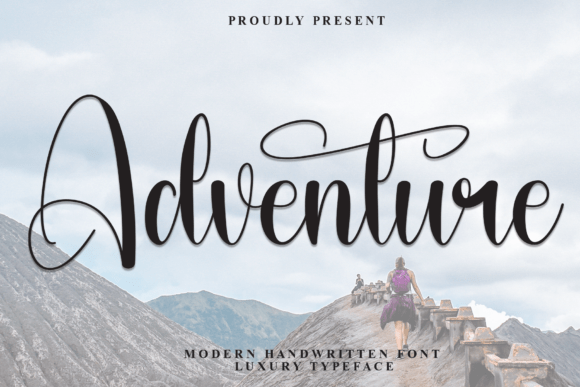
The Perfect Script for Your Next Creative Quest
Have you ever sat down with a blank sheet of paper, a blank canvas, or a blank screen, and felt the thrill of a new creative project waiting to be born? The blank slate can be both exhilarating and intimidating, but the right tools can make all the difference. That’s where the Adventure Font comes in – a stylish handwritten script that combines modern elegance with a playful touch, making it the perfect companion for your next creative adventure.
Whether you’re designing a logo, packaging, or invitation, the Adventure Font brings a personal feel to your work, adding warmth, sophistication, and creativity to every project. As a designer, you understand the value of a versatile and high-quality font that can elevate your designs and make them truly stand out. With the Adventure Font, you’ll find yourself reaching for it again and again, thanks to its fluid strokes and charming curves.
Key Features of Adventure Font
- Unique Characteristics: Distinctive, hand-drawn design with a sense of adventure and exploration
Adventure Font Review
I was excited to dive into the Adventure Font and see what it had to offer. Here’s my honest take:
The font’s playful feel is undeniable. It’s perfect for creating a sense of adventure and excitement in any project. The customizable weights and italic styles add a level of flexibility that’s hard to resist.
- Unique letterforms that add to the adventurous feel
- Good legibility even at smaller font sizes
- Wide range of customization options
While the Adventure Font is a great choice for many projects, it’s not without its limitations. The font’s quirky feel might not be suitable for all projects, and the limited language support might be a concern for some users.
- May not be suitable for formal or professional projects
- Limited language support, including some non-Latin scripts
The Adventure Font is a great choice for anyone looking to add a playful touch to their project. While it may not be suitable for all projects, it’s a great addition to any designer’s toolkit. With a little creativity, the Adventure Font can help take your project to the next level.
Adventure Font Practical Application Guide
Getting the Most Out of Adventure Font
For the best results, use Adventure Font for titles, headings, and emphasis in your design. Avoid using it for large blocks of text, as it can be difficult to read.
Adventure Font is perfect for:
- Travel brochures and websites
- Adventure-themed marketing materials
- Outdoor and sports-related designs
Alternatives to “Adventure Font” for Designers
Great Vibes is a modern, cursive script font that is perfect for creating a sense of excitement and adventure. It is ideal for use in titles, headings, and other design elements where a touch of elegance and sophistication is required.
Great Vibes is more elegant and refined compared to Adventure Font, making it suitable for more upscale designs. It is also more versatile and can be used in a variety of contexts, from fashion to travel.
Bangers
Bangers is a bold, sans-serif font that is designed to make a statement. It is perfect for use in titles, headings, and other design elements where a sense of energy and excitement is required.
Bangers is more aggressive and attention-grabbing compared to Adventure Font, making it suitable for use in bold and adventurous designs. It is also more versatile and can be used in a variety of contexts, from sports to technology.
Pacifico is a beautiful, elegant script font that is perfect for creating a sense of relaxation and adventure. It is ideal for use in titles, headings, and other design elements where a touch of sophistication and elegance is required.
Q: Are there any specific font pairing recommendations for Adventure Font?
Adventure Font is a versatile font family that can be paired with a variety of font styles to create unique and visually appealing combinations. Some recommended pairing options include sans-serif fonts like Open Sans or Lato for a modern look, or serif fonts like Georgia or Merriweather for a more traditional feel.